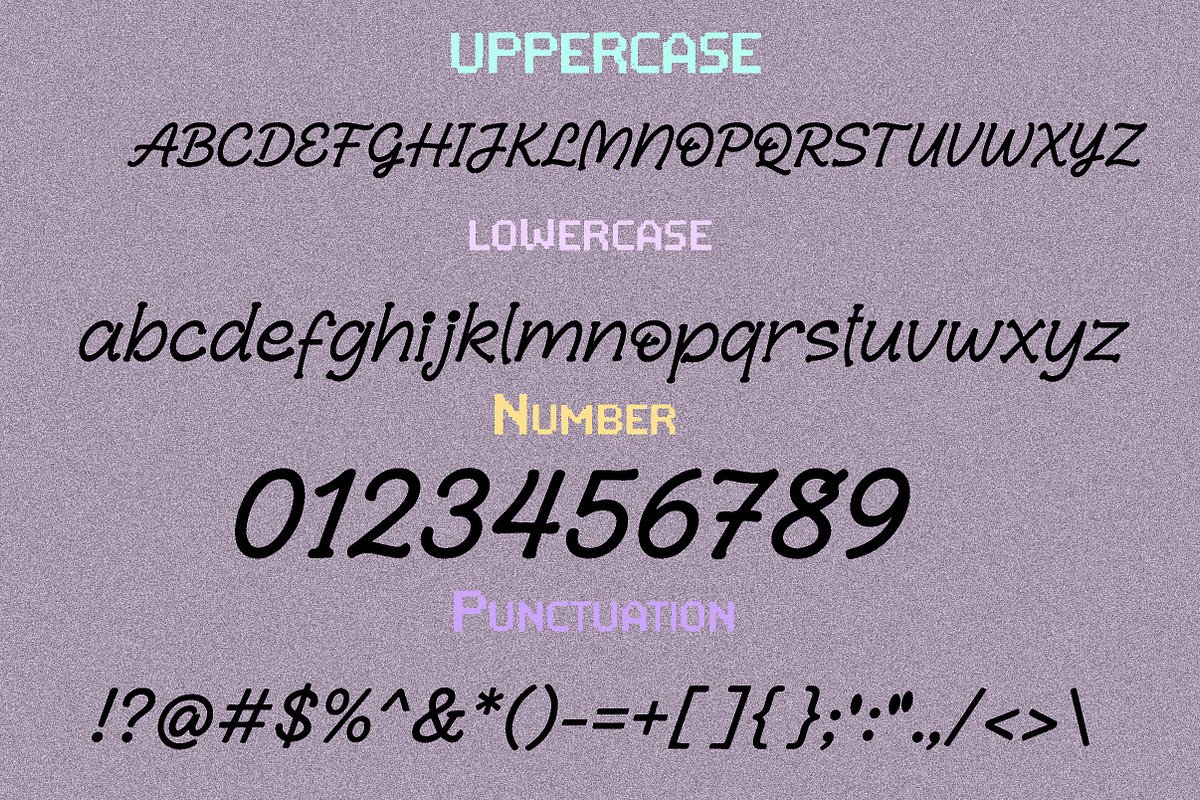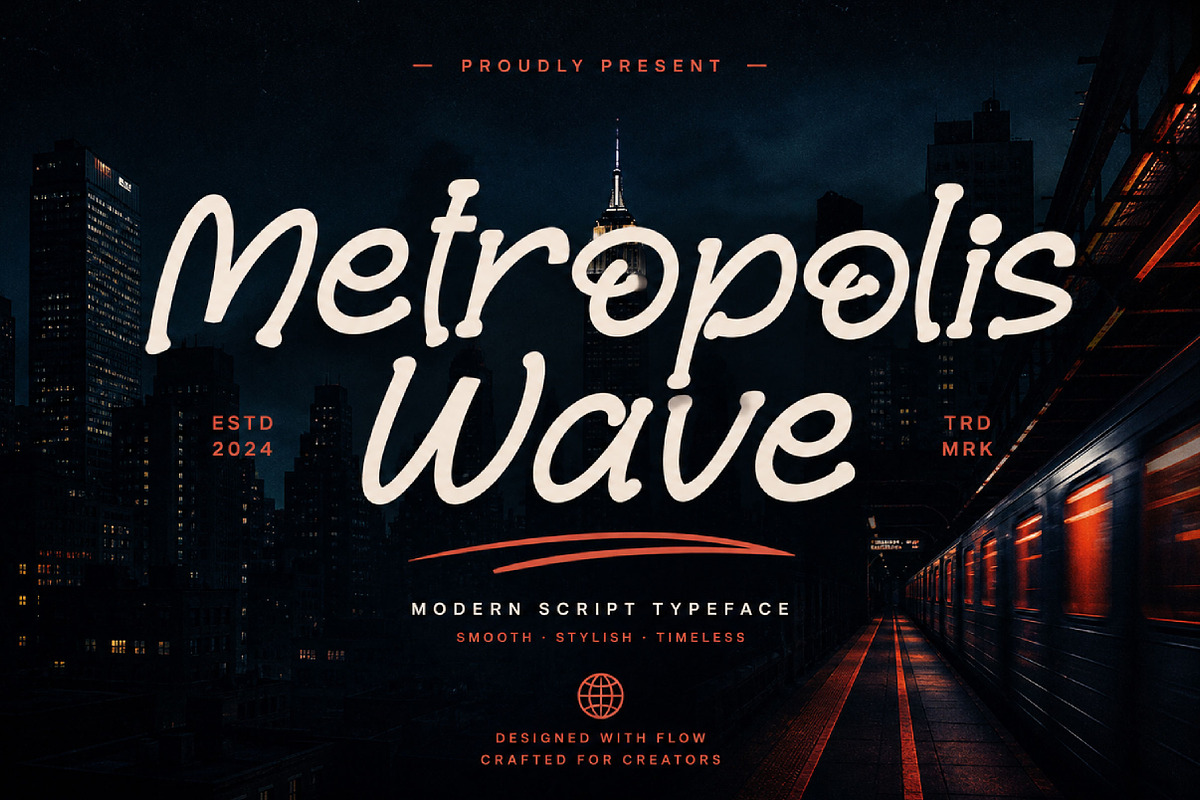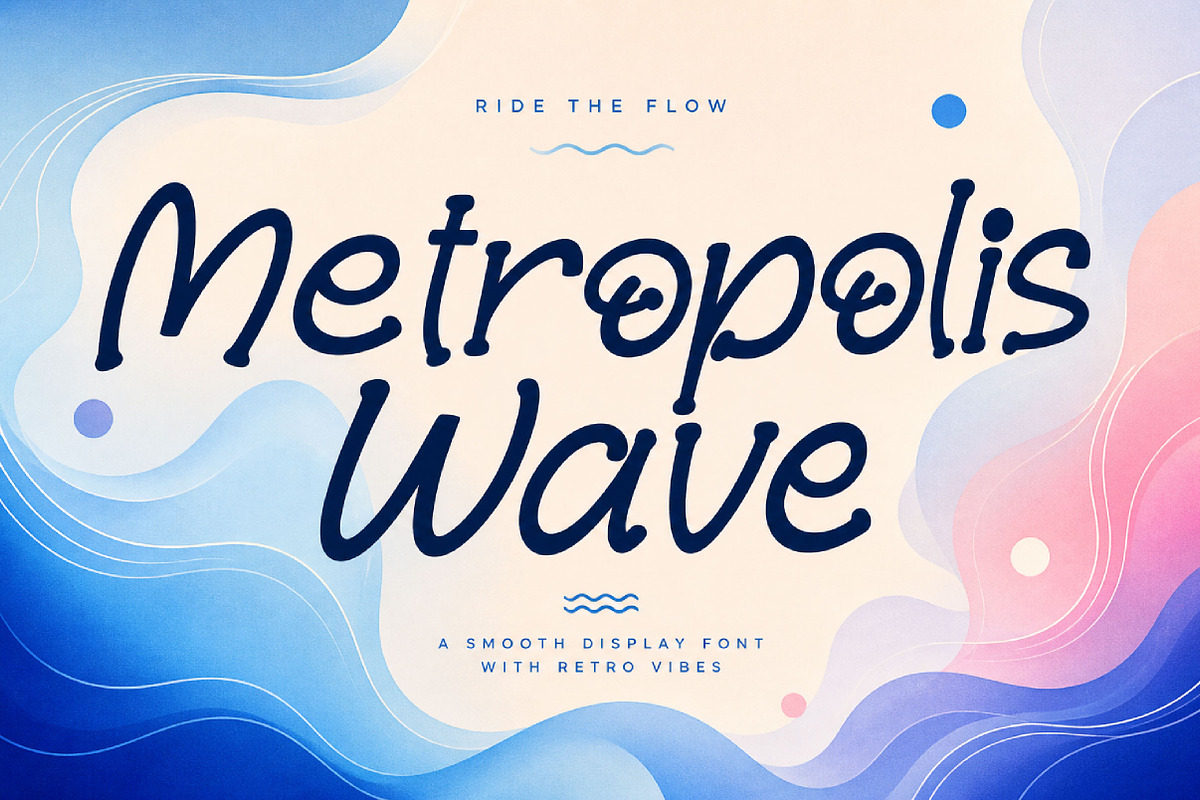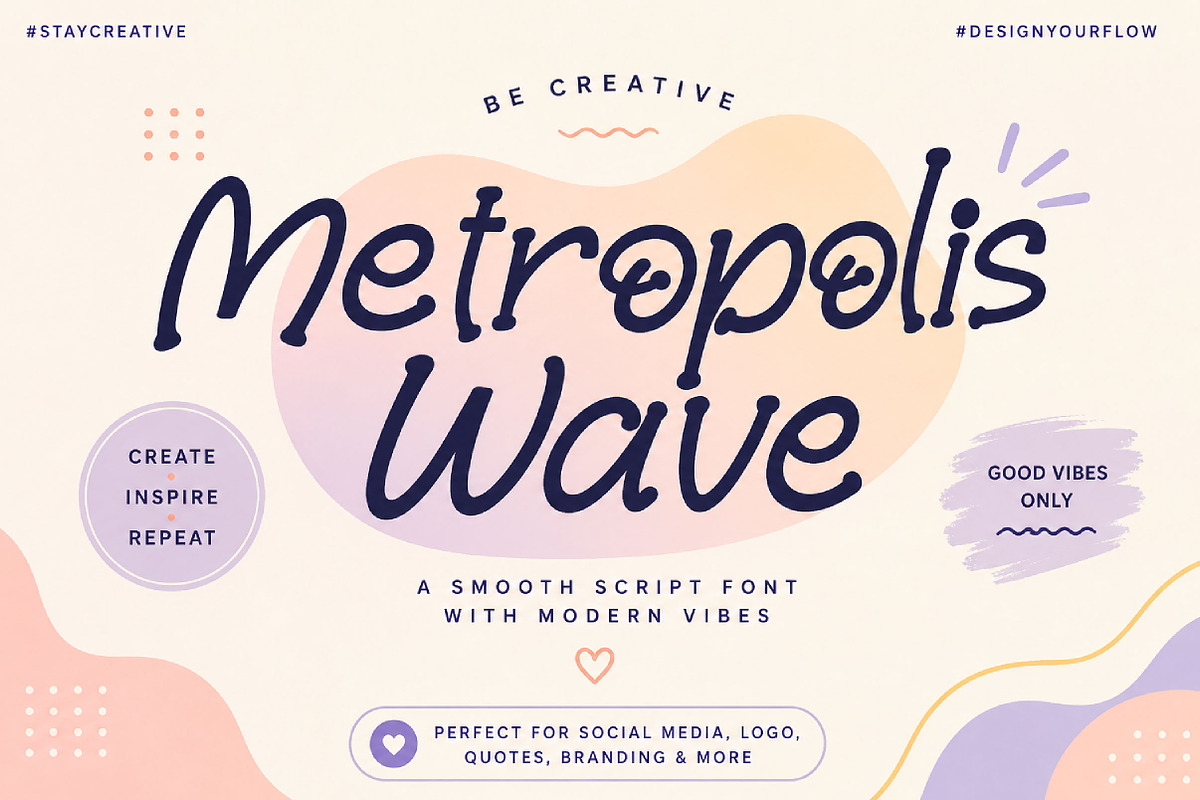
Metropolis Wave
Metropolis Wave – Modern Handwritten Script Font
Metropolis Wave is a smooth, modern handwritten script font with elegant curves and a stylish flowing look, perfect for logos, branding, invitations, packaging, social media, and lifestyle designs.
Metropolis Wave is a modern handwritten script font designed to bring elegance, movement, and personality to your creative projects. With its smooth letterforms, flowing curves, and stylish handwritten character, this font creates a refined yet expressive look that feels fresh, artistic, and contemporary.
Its graceful script style makes Metropolis Wave perfect for designs that need a personal, fashionable, and modern touch. Use it for branding, logo design, wedding stationery, product packaging, posters, social media graphics, merchandise, website headers, quotes, and lifestyle projects.
Logos and branding
Wedding invitations
Product packaging
Posters and headlines
Fashion branding
Beauty products
Lifestyle designs
Website headers
Creative quotes
Merchandise design
Uppercase letters
Lowercase letters
Numbers and punctuation
Smooth handwritten script style
Elegant flowing curves
Modern and expressive look
Perfect for display use